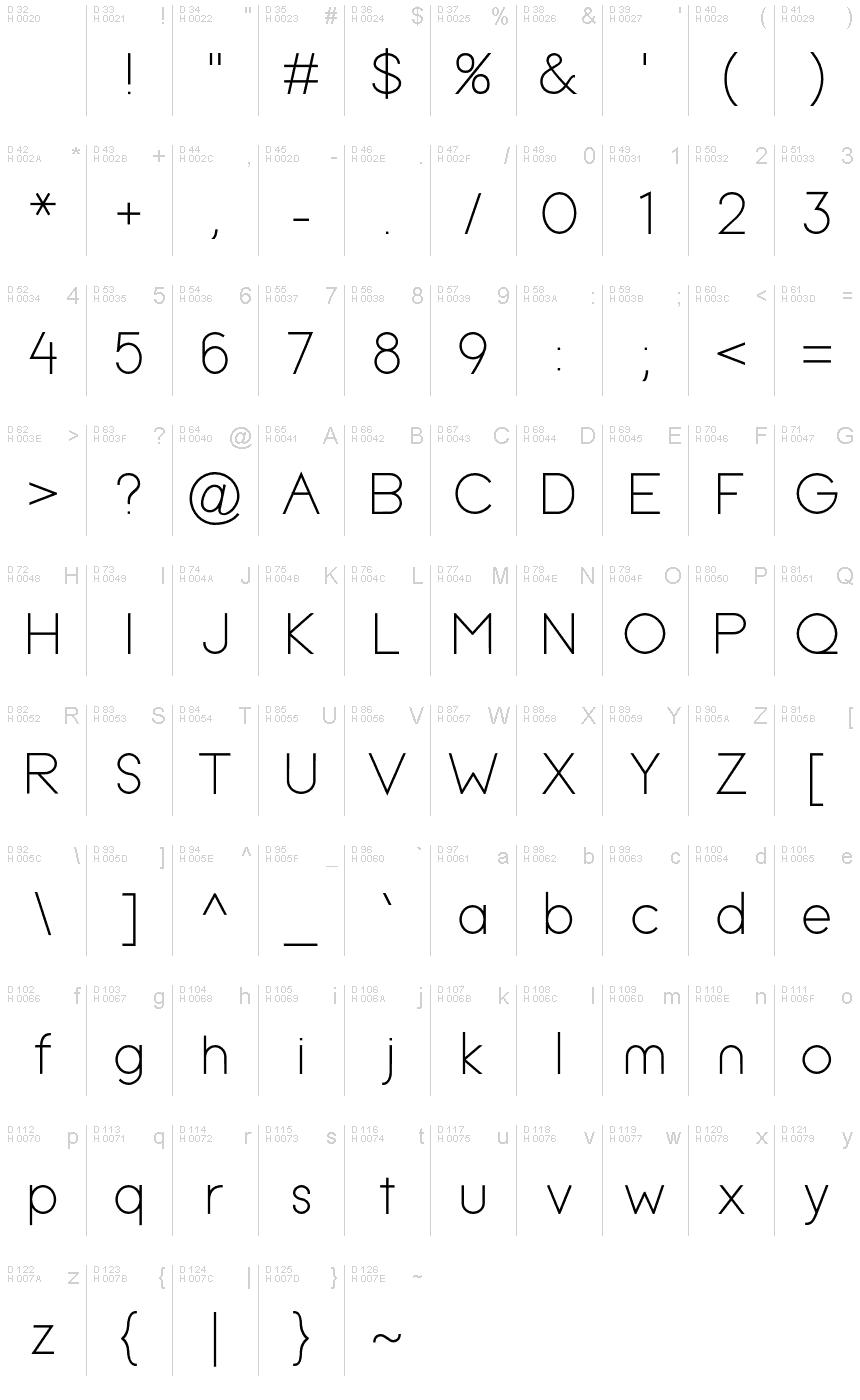
simpletix
Simpletix is a thin sans serif typeface designed by samuraininja360.
One of the best modern fonts made by a web developer!
Perfect geometric characters are perfect for paragraphs and titles especially in heavier weights.